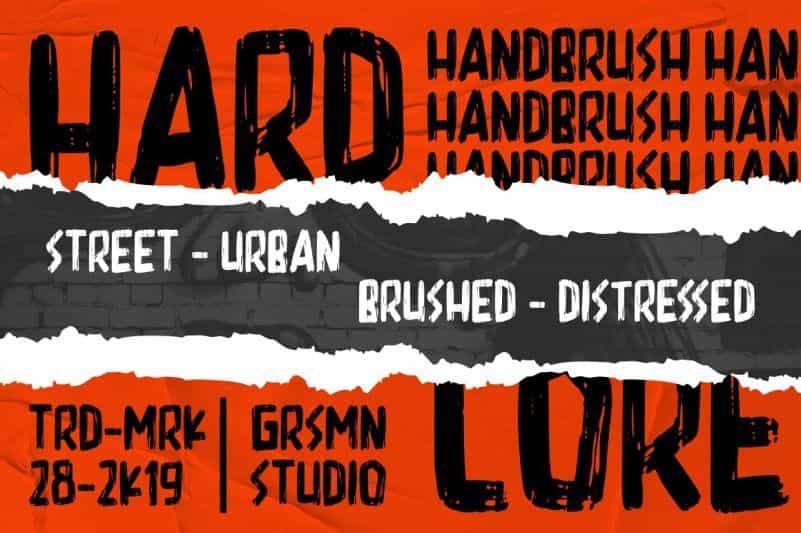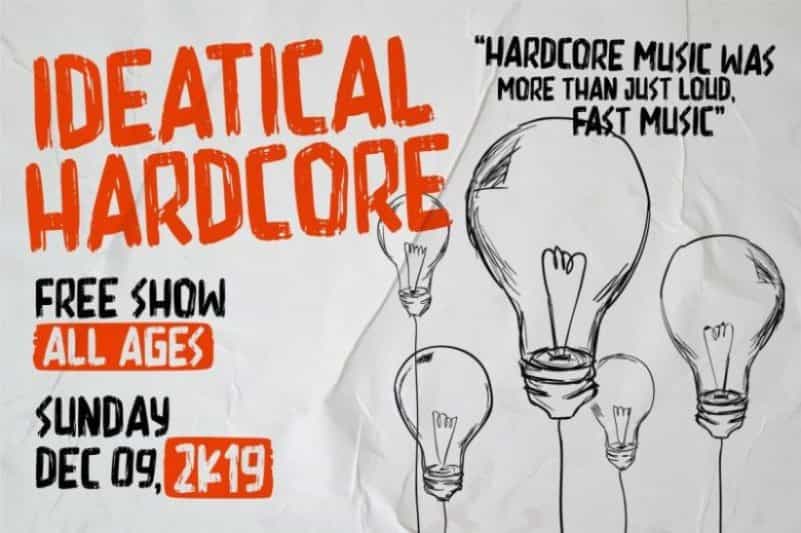
Hardcore is a brush font that is hand-drawn with rough and bold strokes throughout the letters. It is ideal for logos, branding, print media and any headline that is meant to draw attention. Hardcore means all the uppercase letters of different languages, signs, and numbers. It also contains most of the letters in different styles, which are switched by Caps Lock.